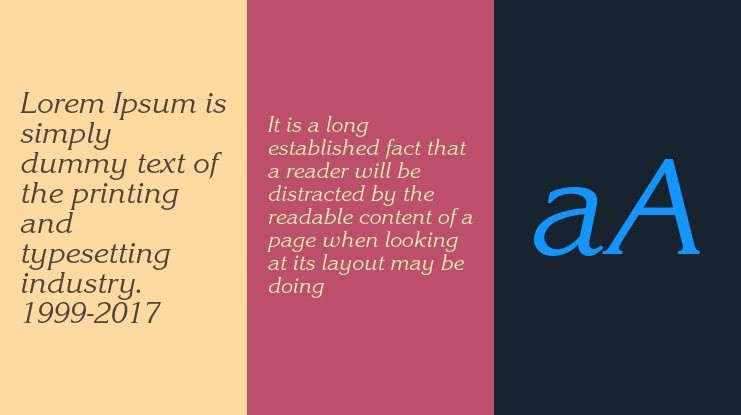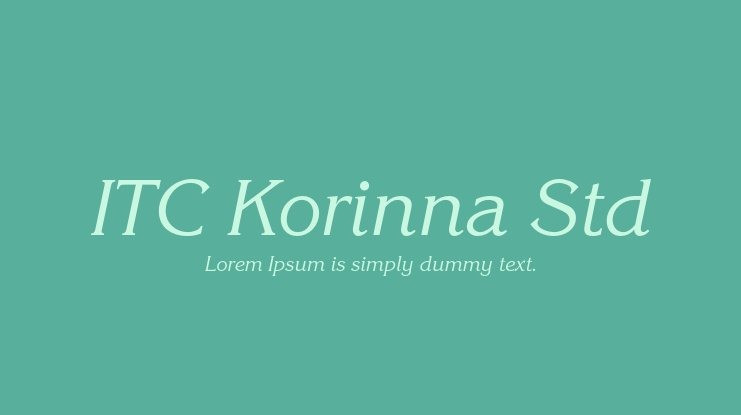
ITC Korinna Font
ITC Korinna Font is based on an older German design that was originally cast at the beginning of the 20th century. That ITC Korinna was created speaks to the status that Art Nouveau had for designers during the 1960s and 70s. Thanks to their keen reviving of this ever-popular style, computer users can still use this type style today.
New York designers Ed Benguiat, Victor Caruso, and the staff at Photo Lettering, Inc. developed the ITC Korinna typeface family during the 1970s.
ITC Korinna is perfect for display and advertising typography, as well as for headlines in newsletters and magazines.